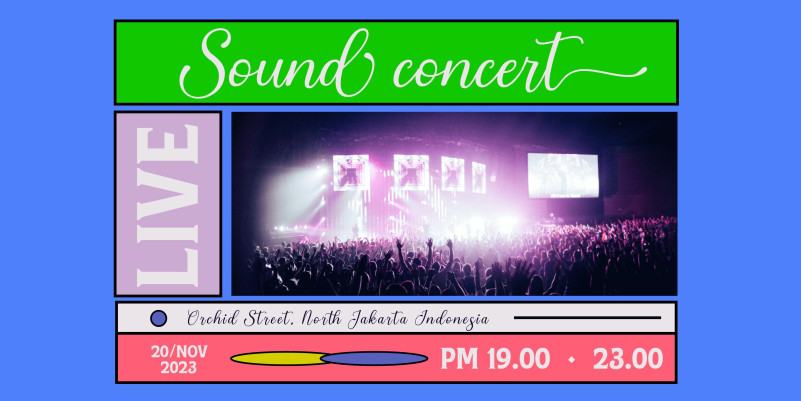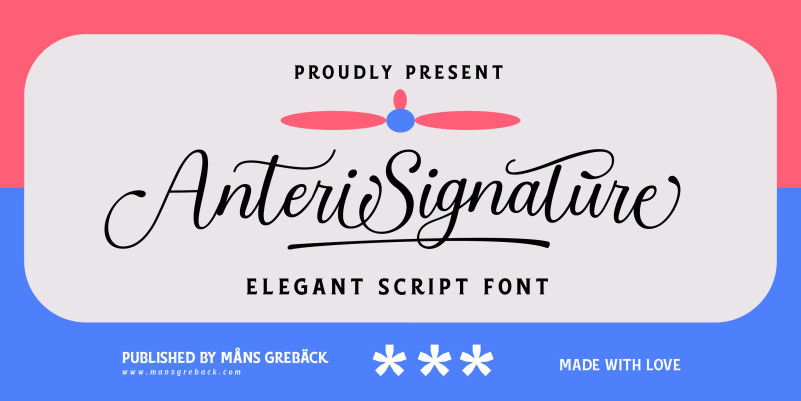
Anteri Signature Font
Anteri Signature Font, is a stunning retro calligraphy stroke font, perfect for use in logotypes and more! This font has a poppy, bold appeal and comes with three styles so you can layer for an incredibly stylish look to your projects.
Use underscore _ anywhere in a word to make a swash.
Example: Love_letter
Use multiple underscores to make longer underlines.
Use % at the end of any word to make a swash letter.
Example: Scrap__book%
Write # before or after any word to make a tail letter.
Example: #cuteness#